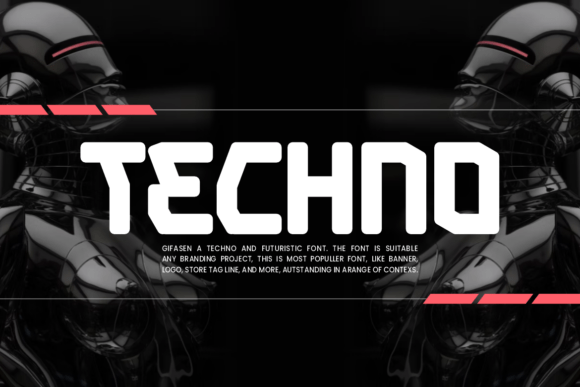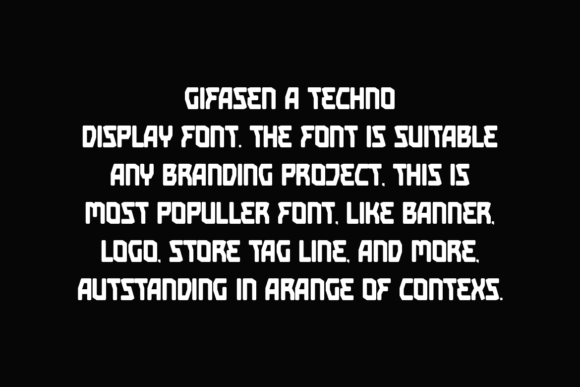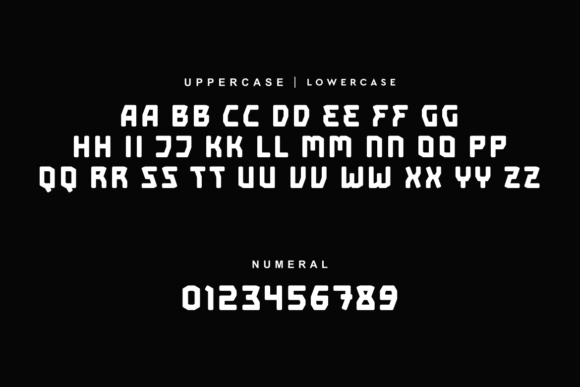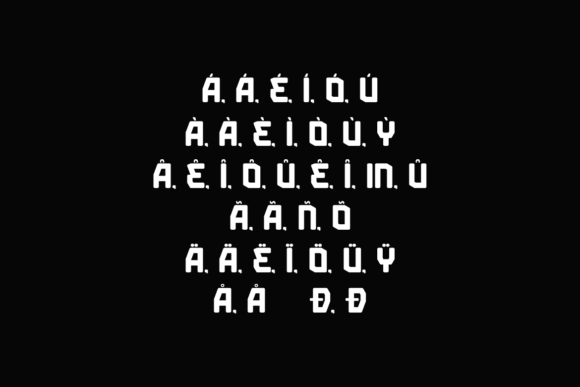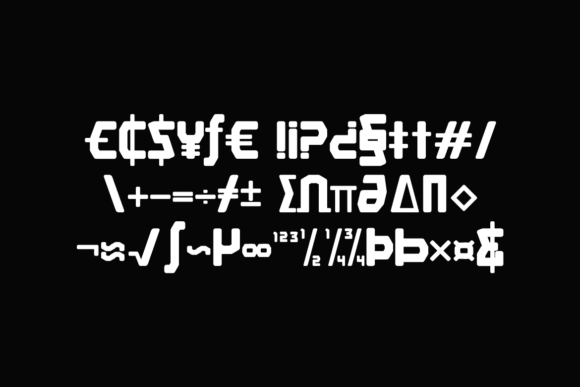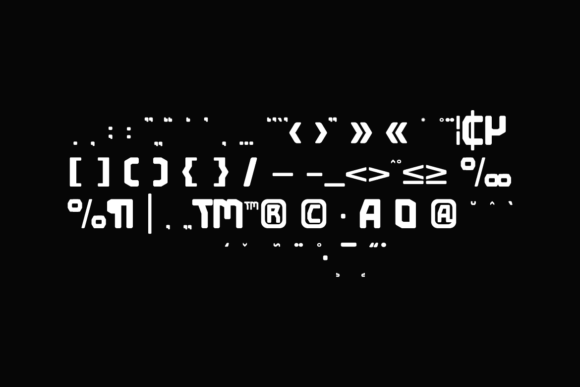
Gifasen Font: Elevate Your Designs with a Bold and Modern Display Font
In the world of typography, fonts play a crucial role in conveying the message and aesthetic of a design. For designers and crafters looking to make a statement, Gifasen font emerges as a powerful tool. This cool display font is characterized by its boldness, contemporary flair, striking shapes, dynamic angles, and eye-catching details, making it an ideal choice for anyone aiming to infuse their projects with a modern urban style.
The Essence of Gifasen Font
Gifasen font is not just any ordinary typeface. It’s a design statement that embodies the spirit of modern urban aesthetics. Its bold and dynamic appearance is crafted to grab attention, making it perfect for a variety of applications, from posters and logos to headlines and social media graphics. The font’s unique character and strong presence ensure that it stands out in any design, delivering both creativity and impact.
Key Features of Gifasen Font
- Bold and Contemporary Flair: Gifasen font is designed with a bold and contemporary look that instantly elevates the visual appeal of any design.
- Striking Shapes and Dynamic Angles: The font features striking shapes and dynamic angles, adding a layer of sophistication and modernity to designs.
- Eye-Catching Details: With its intricate details, Gifasen font captures the essence of modern urban style, making it a versatile choice for various design projects.
- Versatility: Whether it’s for posters, logos, headlines, or social media graphics, Gifasen font proves to be a versatile tool that can adapt to different design needs.
Applications of Gifasen Font
The versatility of Gifasen font makes it suitable for a wide range of applications. Here are some of the areas where this font truly shines:
- Posters: Create eye-catching posters for events, promotions, or awareness campaigns with Gifasen font.
- Logos: Design memorable and impactful logos for businesses or brands looking to make a statement.
- Headlines: Use Gifasen font for headlines in magazines, newspapers, or digital publications to add a touch of modernity.
- Social Media Graphics: Elevate your social media presence with engaging graphics that feature Gifasen font.
Why Choose Gifasen Font?
In a sea of fonts, Gifasen stands out for several reasons:
- Uniqueness: Gifasen font offers a unique style that can set your designs apart from the rest.
- Impact: Its bold and dynamic appearance ensures that your message is conveyed with impact.
- Creativity: With Gifasen font, you can explore a wide range of creative possibilities, from minimalist designs to more elaborate compositions.
- Legibility: Despite its boldness, Gifasen font maintains a level of legibility that makes it suitable for various applications.
Tips for Using Gifasen Font Effectively
To make the most out of Gifasen font, consider the following tips:
- Pair with Simplicity: Pair Gifasen font with simpler fonts for body text to create contrast and visual interest.
- Experiment with Colors: Don’t be afraid to experiment with different colors to find the perfect match for your design.
- Play with Sizes: Utilize different sizes of Gifasen font to create hierarchy and emphasis in your design.
- Consider the Background: Ensure that the background complements the boldness of Gifasen font to maintain readability and visual appeal.
Gifasen font is a powerful tool for designers and crafters looking to infuse their projects with a modern and bold aesthetic. Its striking appearance, versatility, and impact make it an excellent choice for a variety of design applications. By incorporating Gifasen font into your designs, you can ensure that your message is conveyed with creativity and impact, setting your work apart in a crowded design landscape.
Whether you’re a professional designer or a DIY enthusiast, Gifasen font offers a world of creative possibilities. So, why settle for ordinary when you can make a statement with Gifasen font? Explore its potential and elevate your designs to new heights.